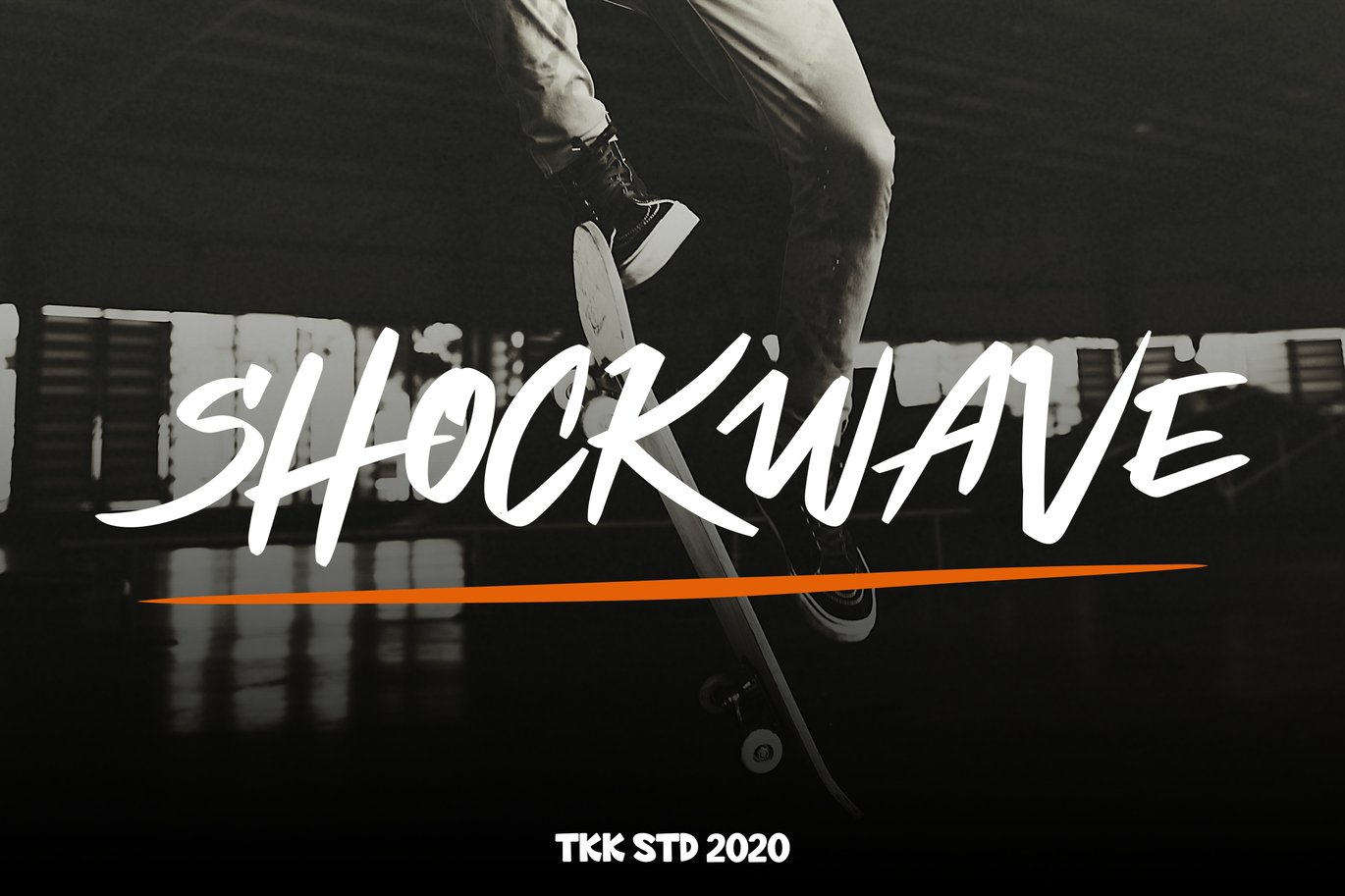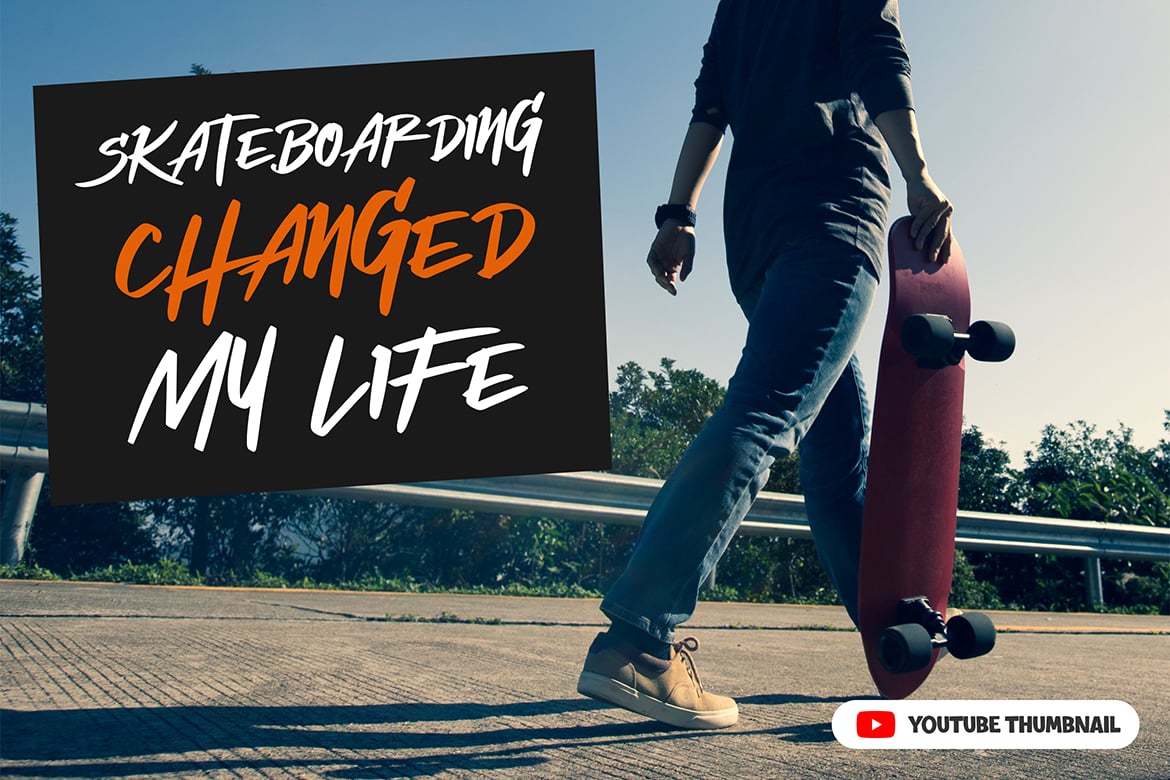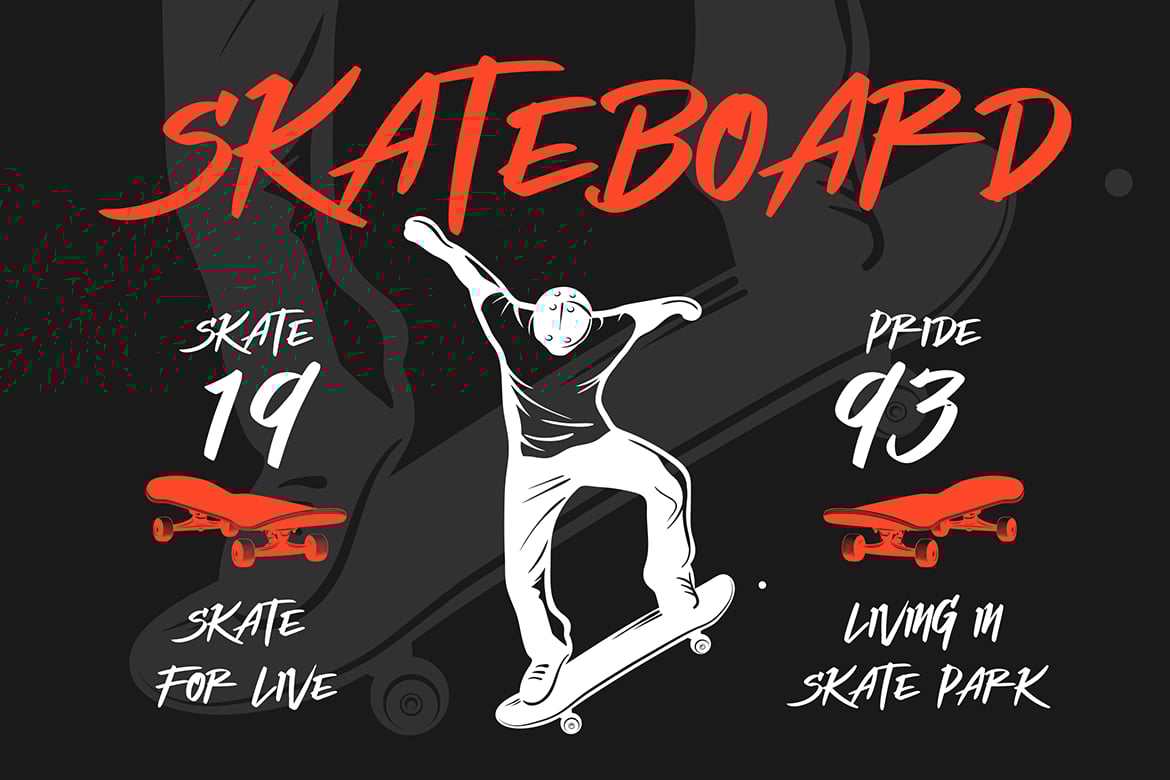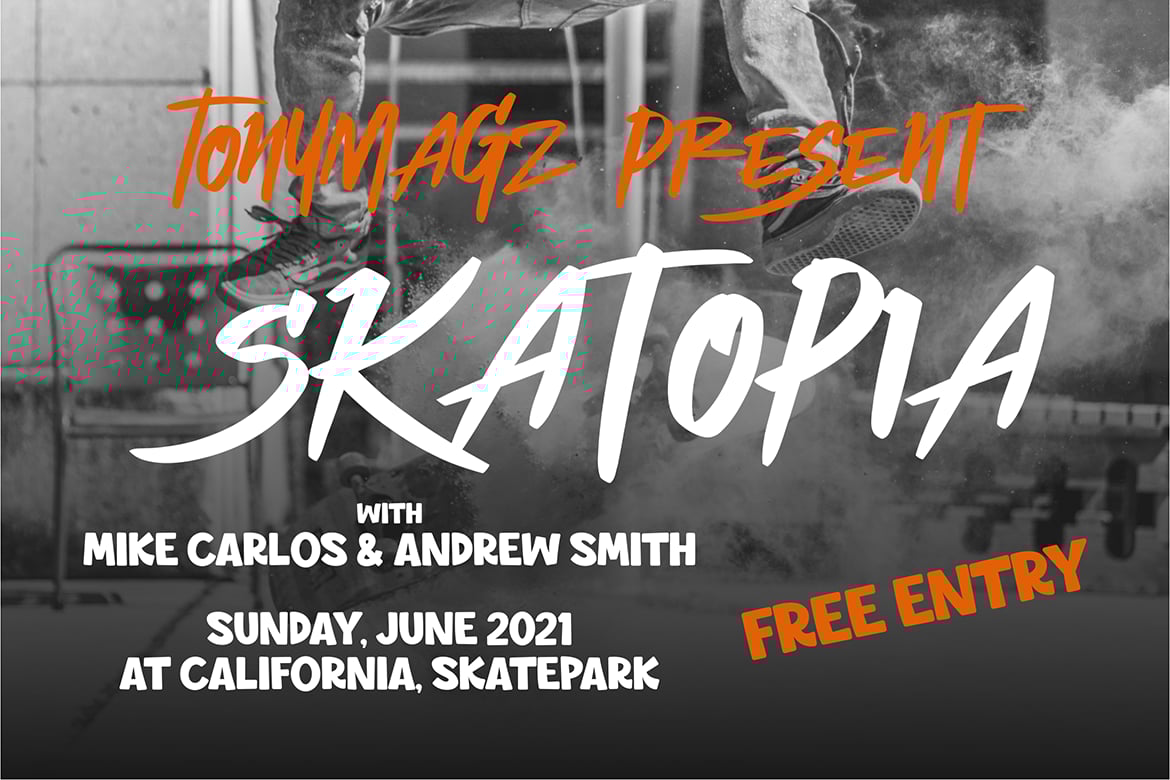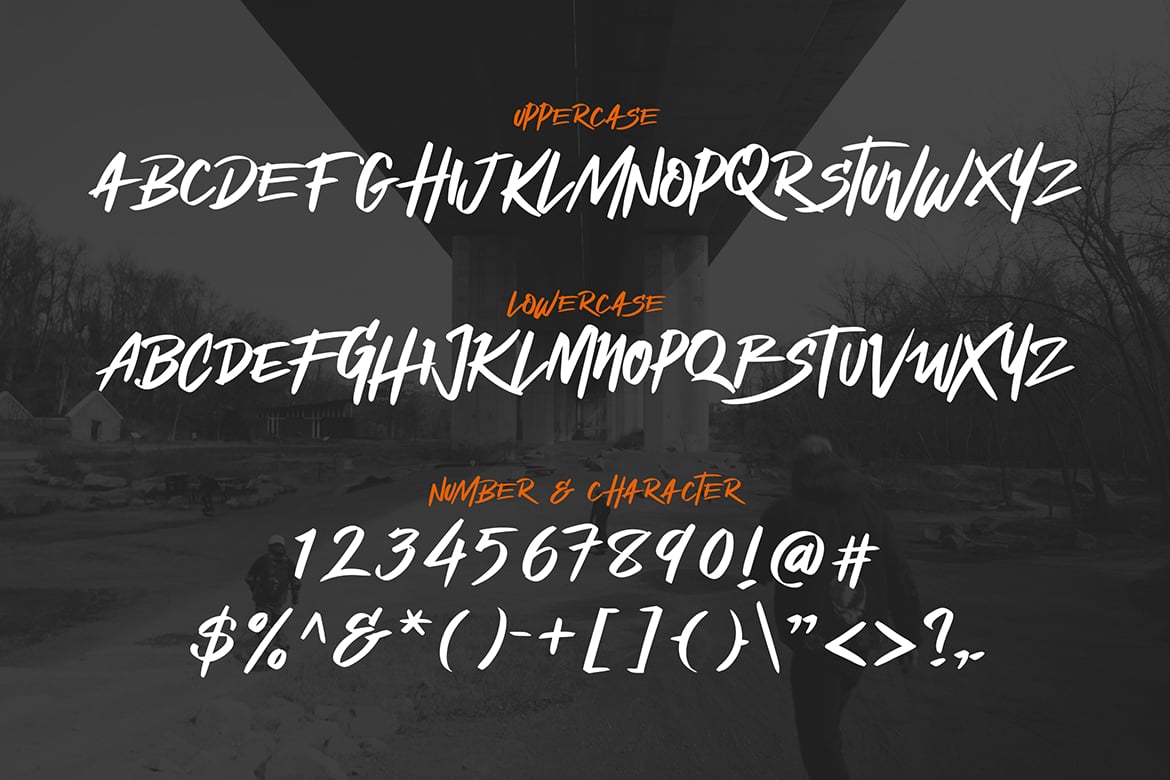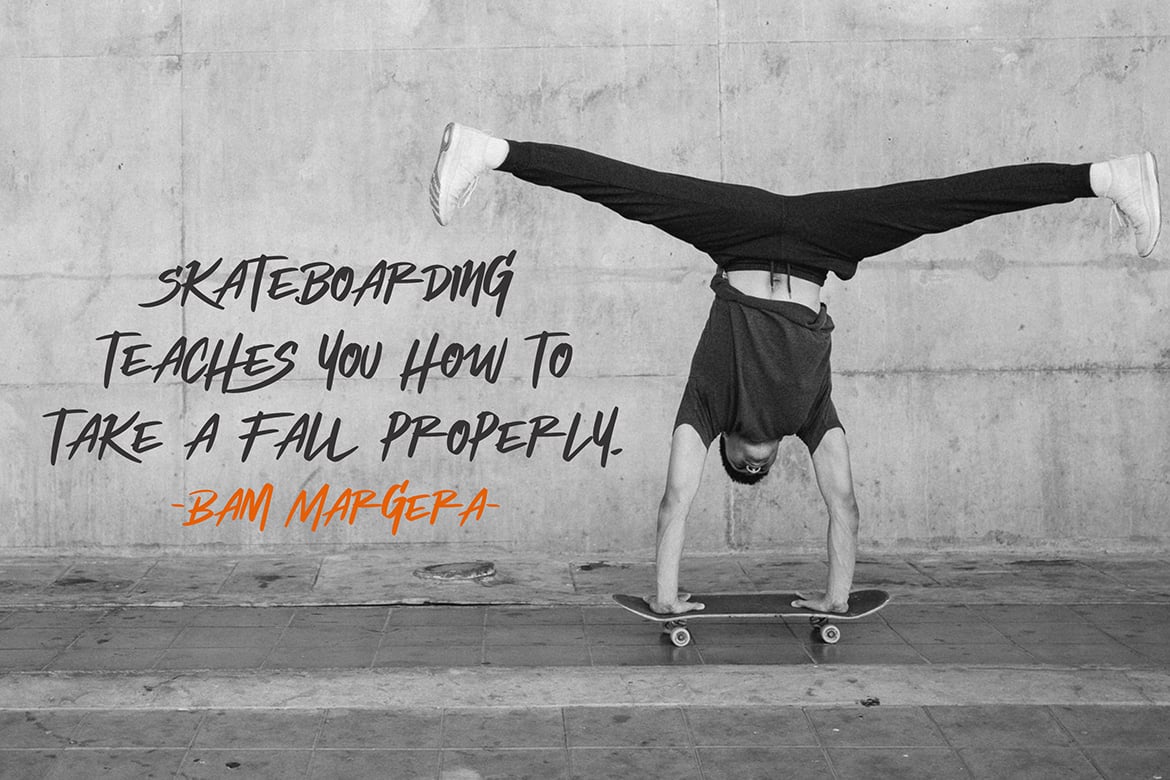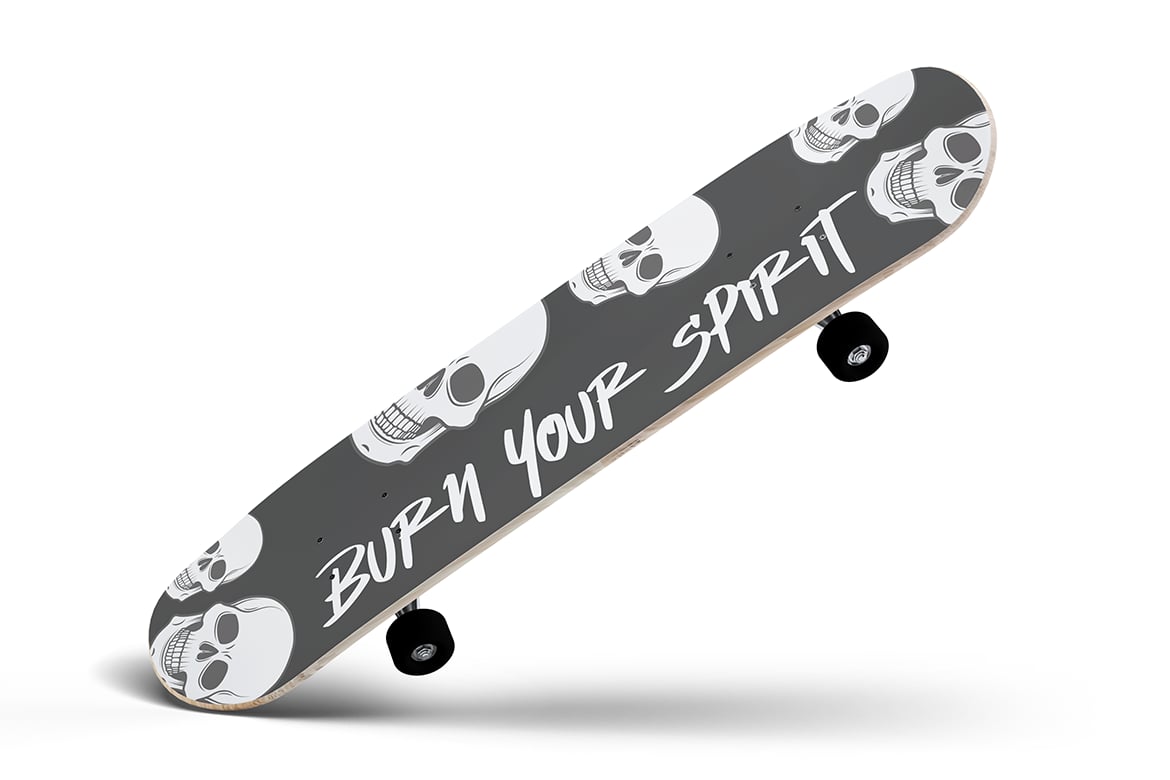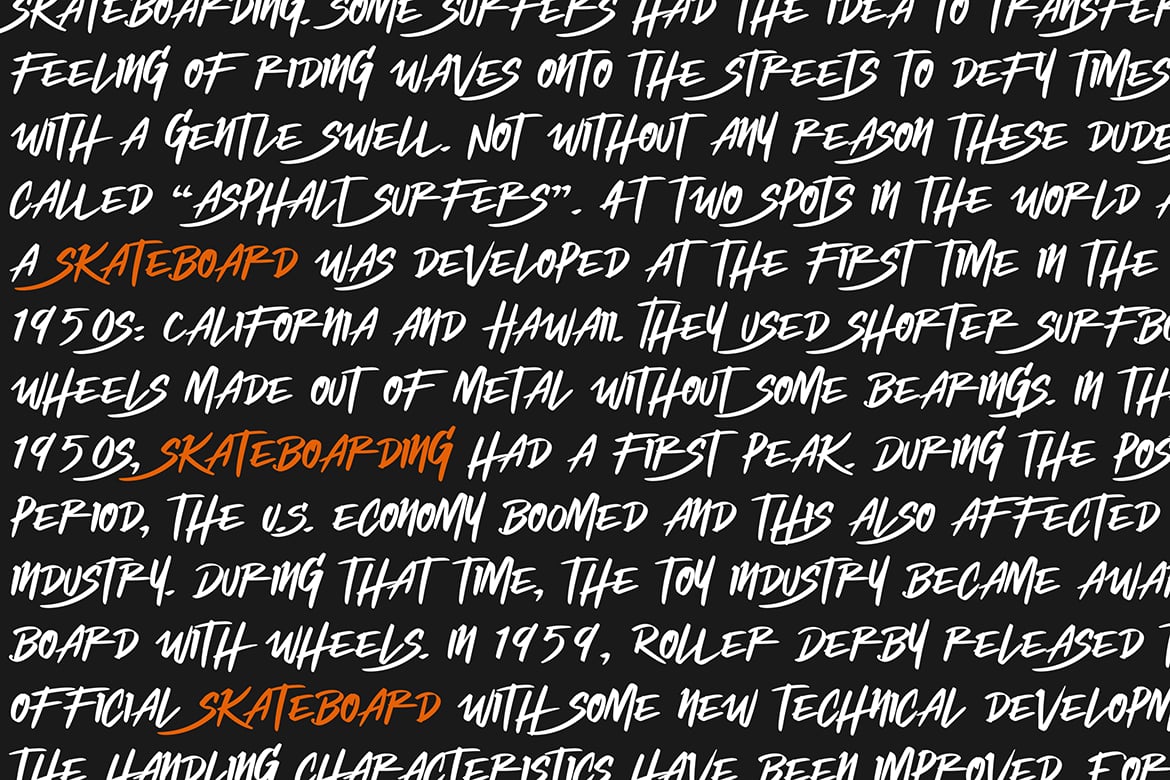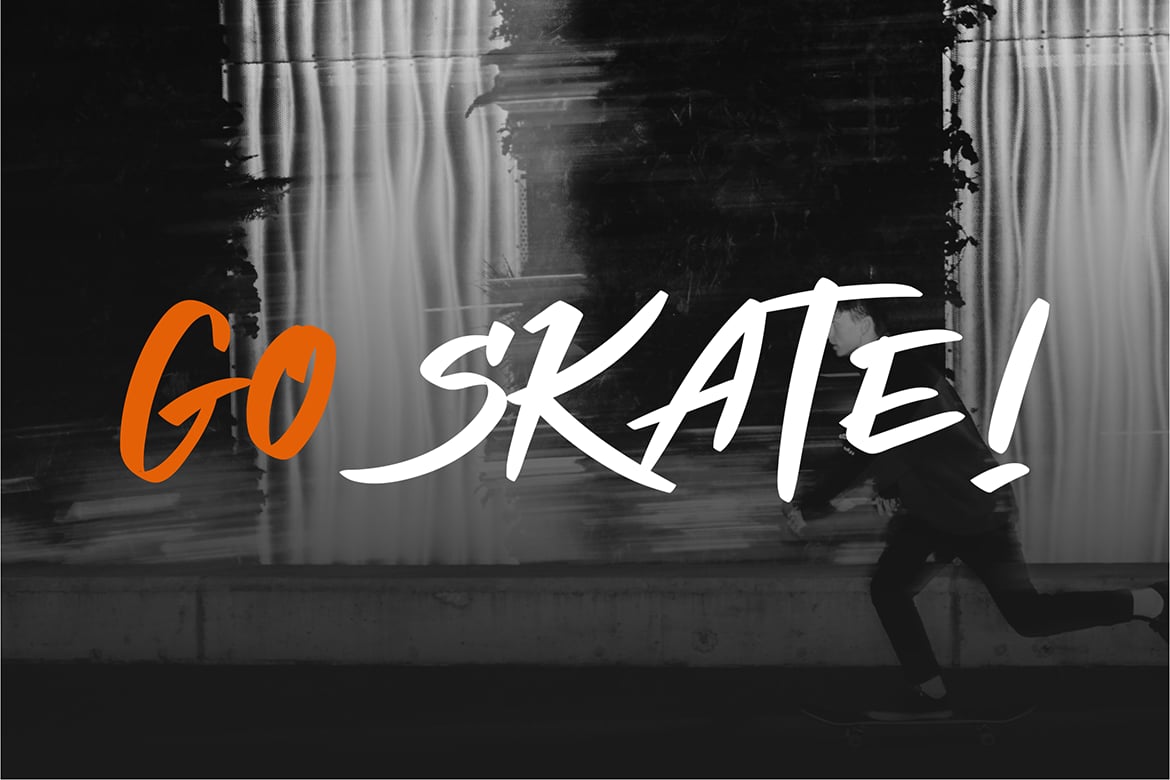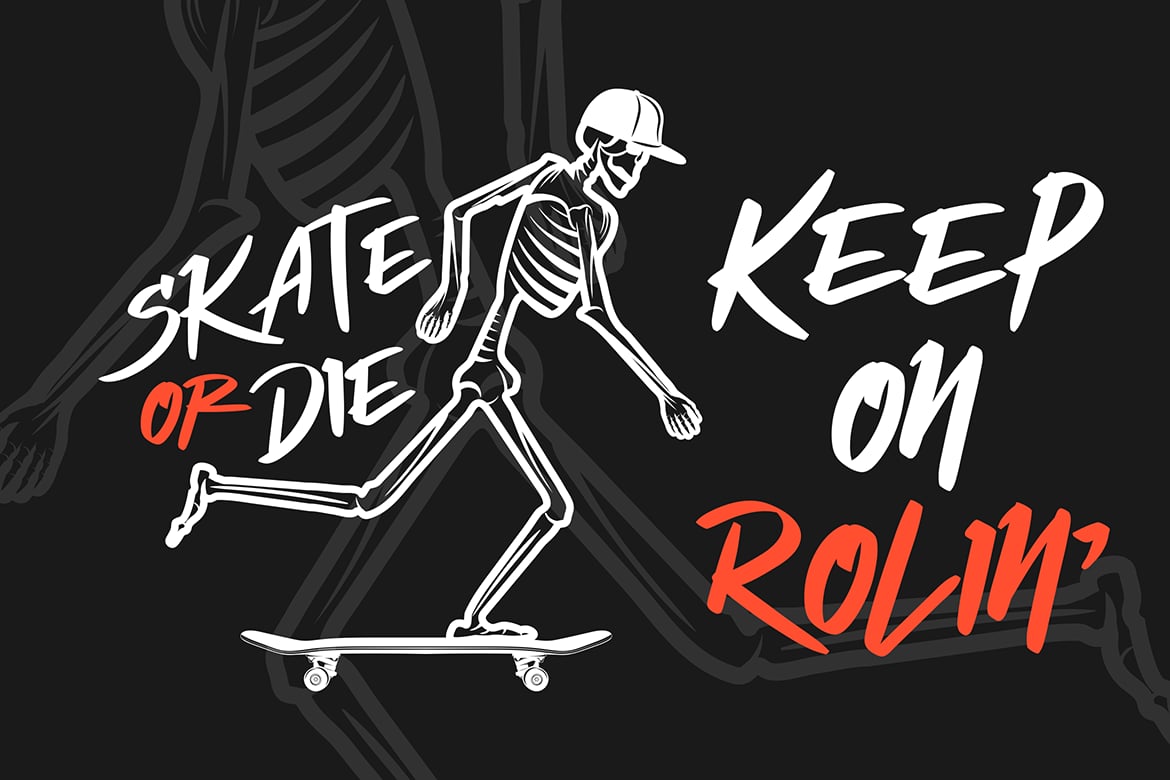
Shockwave – Graffiti Font
Taken from the urban spirit and rebelious teenager signature font. Carefree and always stay on the edge of their adrenaline.
Shockwave will makes everything you wrote, blessed with unlimited energy.
Suit perfectly for Urban and Extreme Online Games, poster, movie title, fast food menu, magazine, youtube covers, youtube thumbnails, social media page covers and so on…